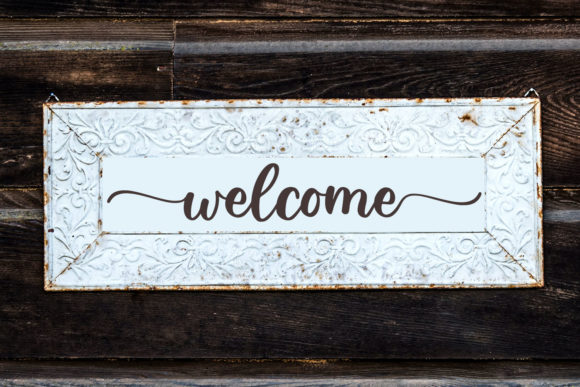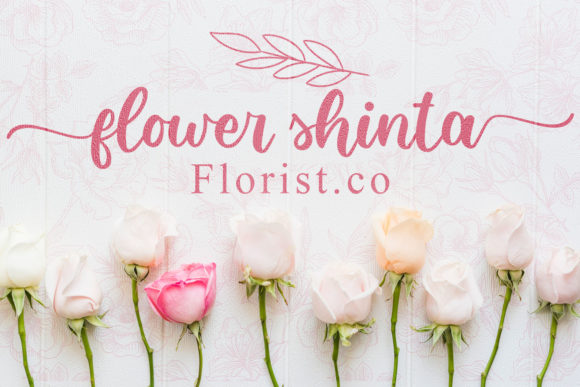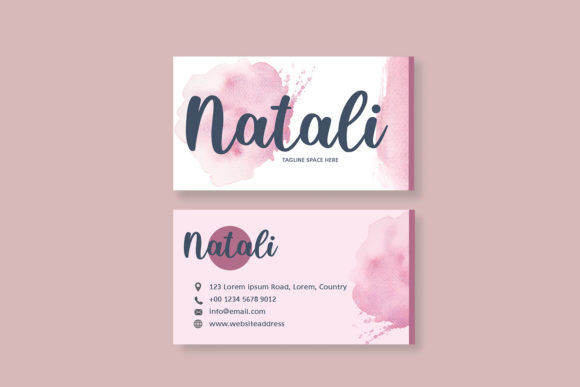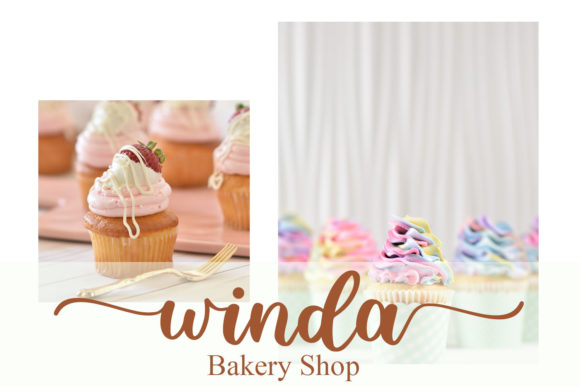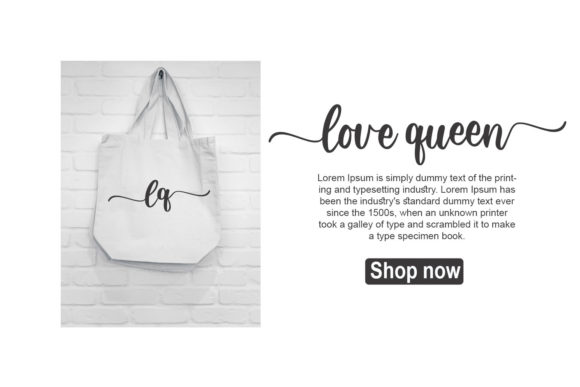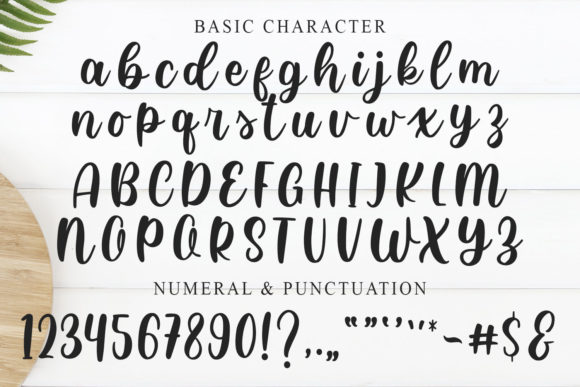
The Designer’s Delight: Uncovering the Beauty of Bobamilk Font
I’ll never forget the moment I stumbled upon the Bobamilk font while working on a luxury branding project for a high-end jewelry client. I had spent hours scouring the internet for the perfect font, but nothing seemed quite right. That was until I saw Bobamilk – a beautiful, light handwritten font that added a spark of sophistication to my design. In this article, I’ll share my experience with Bobamilk, its features, and how to make the most of it in your design projects.
An Honest Review of Bobamilk Font
What I Love About Bobamilk ✨
- 💫 Unique feel: Bobamilk has a distinct, elegant style that sets it apart from other handwritten fonts.
- ✅ Luxury spark: This font adds a touch of sophistication to any design project, making it perfect for high-end branding and luxury designs.
- 🎉 PUA encoded: With PUA encoding, accessing glyphs and ligatures is a breeze, giving you more creative freedom.
- 👍 Versatile: Bobamilk works well for a variety of design projects, from logos and branding to packaging and advertising.
- ⚠️ Limited use in body text: While Bobamilk is stunning as a display font, it may not be the best choice for lengthy body text due to its light and elegant nature.
- 🤔 Limited contrast: Some users may find that Bobamilk doesn’t offer enough contrast for certain design applications, such as designs with busy backgrounds.
The Backstory of Bobamilk Font
While the true story behind Bobamilk’s creation is unknown, it’s clear that the designer was inspired by the elegance and sophistication of handwritten fonts. The result is a font that exudes luxury and refinement, making it perfect for high-end design projects.
Q: What is PUA encoding, and how does it benefit font users?
A: PUA (Private Use Area) encoding allows font users to access glyphs and ligatures easily, making it simpler to create unique and creative designs.
Q: Is Bobamilk suitable for body text?
A: While Bobamilk is a beautiful font, it’s best suited for display text or headings due to its light and elegant nature. For body text, you may want to choose a font with better readability.